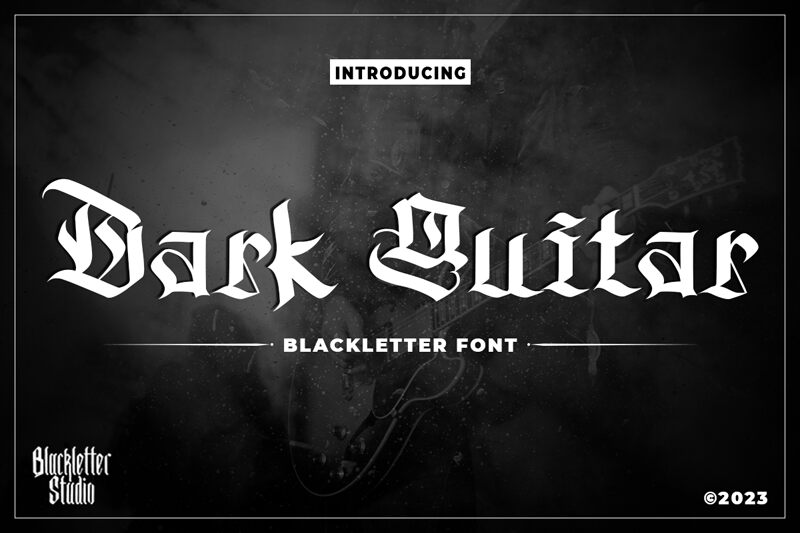
Dark Guitar is a gothic font designed by Blackletter Studio that boasts a unique medieval style. With its semi-light weight, it is perfect for projects requiring an elegant touch of darkness. The sharp, angular lettering of Dark Guitar adds an air of mystery to any design or branding project. This font type is particularly suitable for book covers, posters, album art, and product packaging. Whether you are looking to create an edgy and bold aesthetic or simply want to add some Gothic flair to your project, Dark Guitar is the perfect choice.